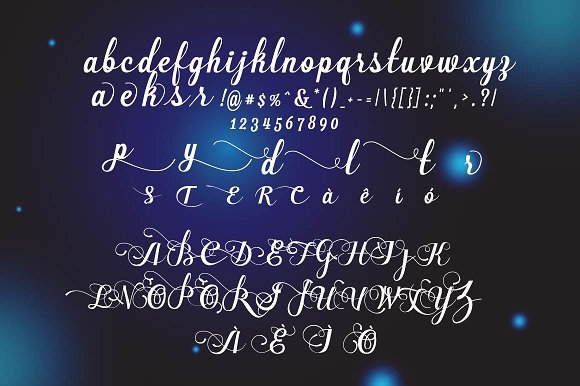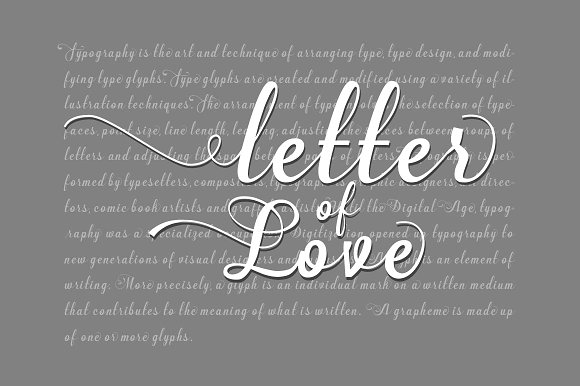
About New Allea Font
New Allea, a beautiful handwritten script. It’s a fluid font that works well in many different types of projects.
This professional looking font is easy to read and works well for marketing & branding as well as craft projects.